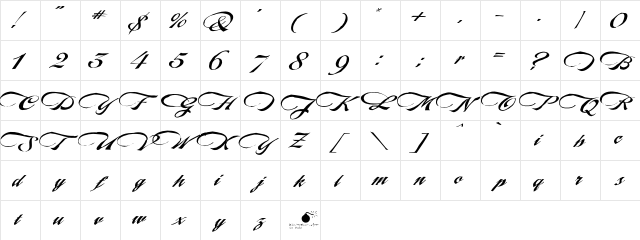
LHF Marie Script Classic Regular
Regular · Dave Correll for Letterhead Fonts Dave Correll ·
DesignerDave Correll
Design Context for LHF Marie Script Classic Typeface
LHF Marie Script Classic wears its vintage influences proudly, with letterforms that recall mid-century signage, classic packaging, and nostalgia-driven design.
Ideal for diner signage, record shop branding, 70s/80s-themed projects, and heritage product labels.
Font Pairing: Combine LHF Marie Script Classic with a simple slab or neutral sans — period-accurate companions reinforce the vintage feel without competing for attention.
Pro Tip: Lean into LHF Marie Script Classic's period character by pairing it with aged paper textures, muted colour palettes, and vintage illustration styles.